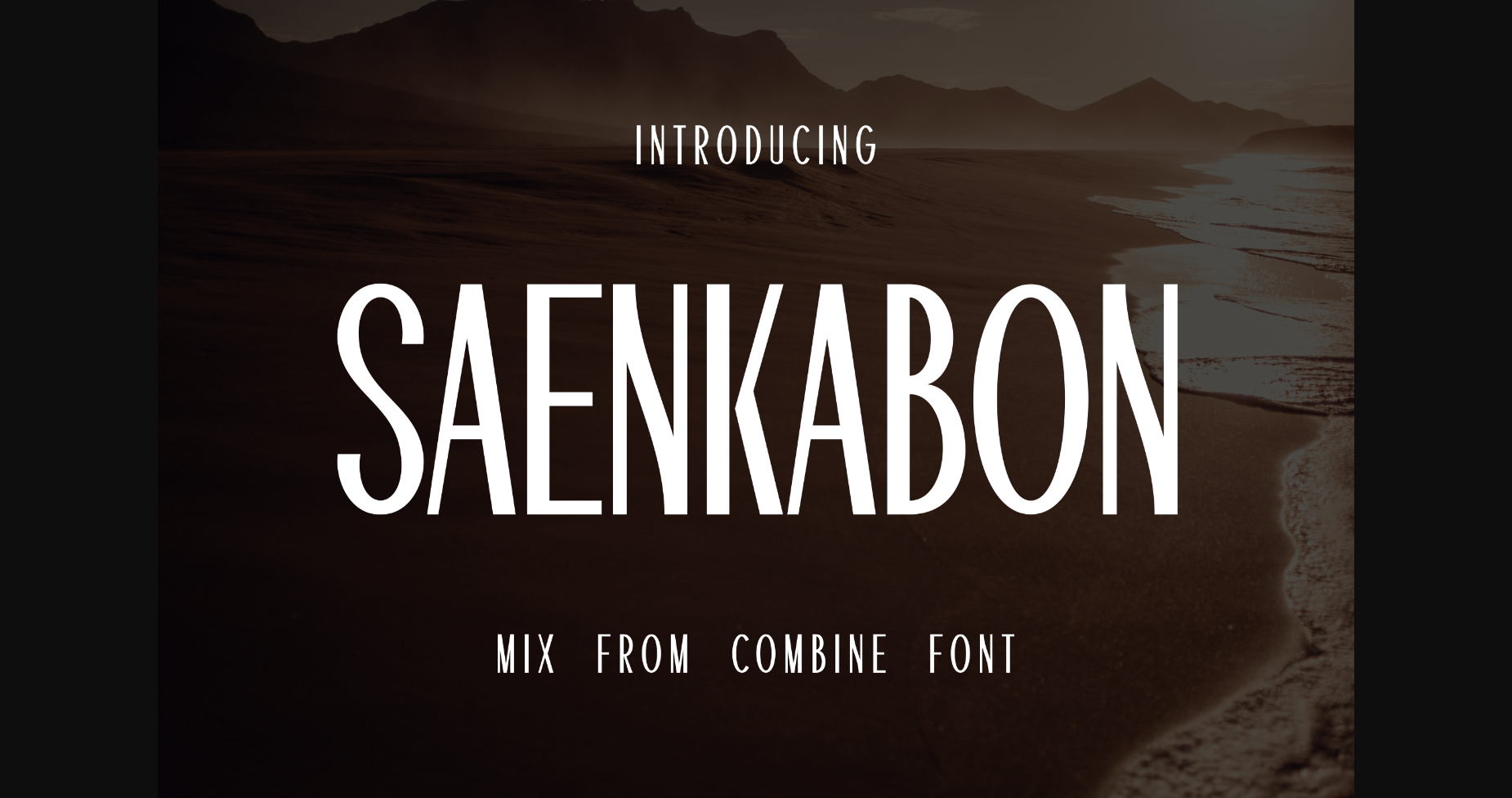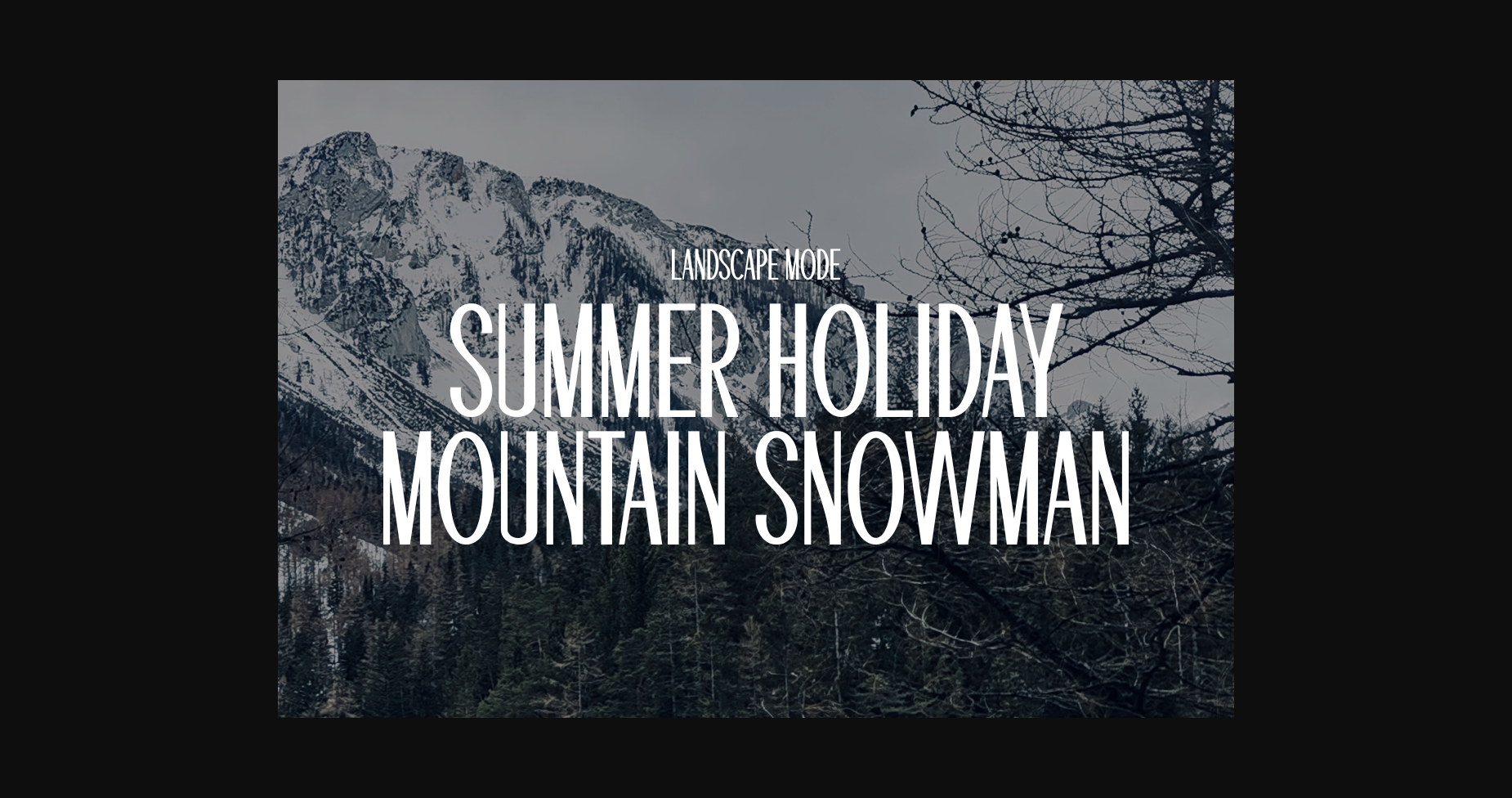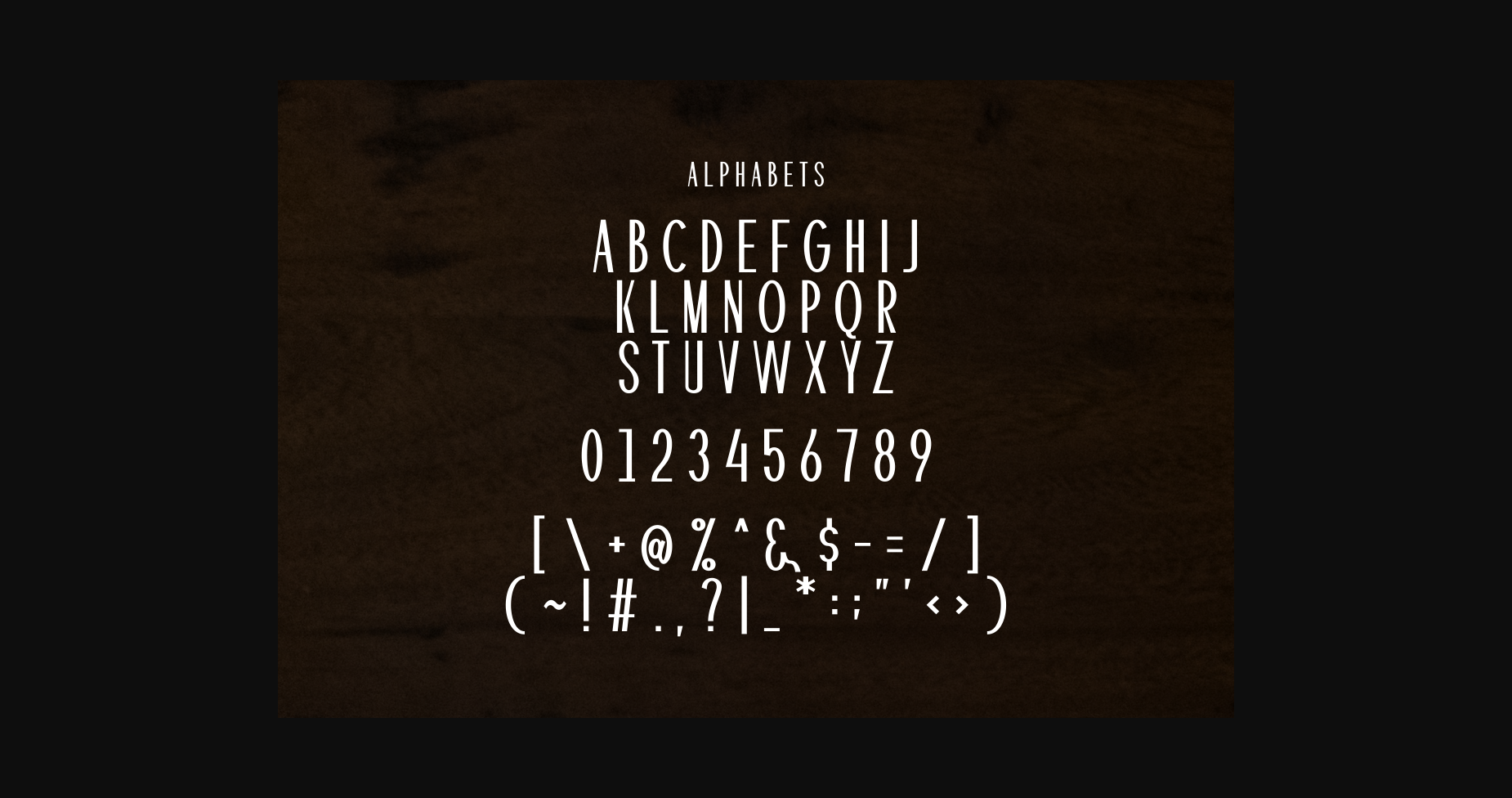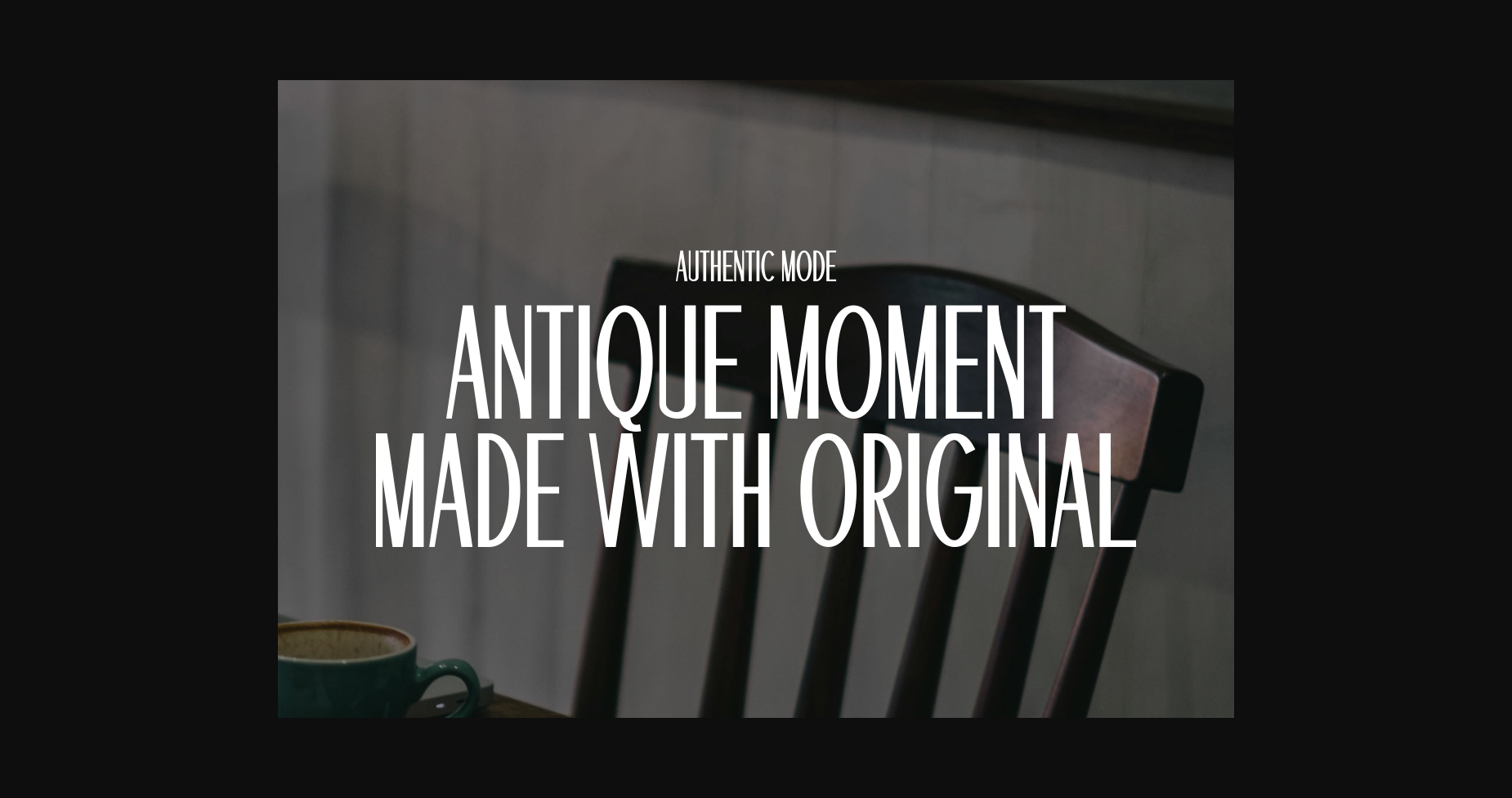
Saenkabon Font
About Saenkabon Font
Saenkabon Font is a unique typeface that combines the elegance of a sans-serif design with vintage influences and a set of special characters. It is particularly well-suited for creating bold and expressive titles, making it a recommended choice for projects like \”Holidays in the Fall/Snow Season.\” Whether used in tourist brochures or tickets, Saenkabon Font adds a seasonal flair to enhance the appeal of tourism tours.